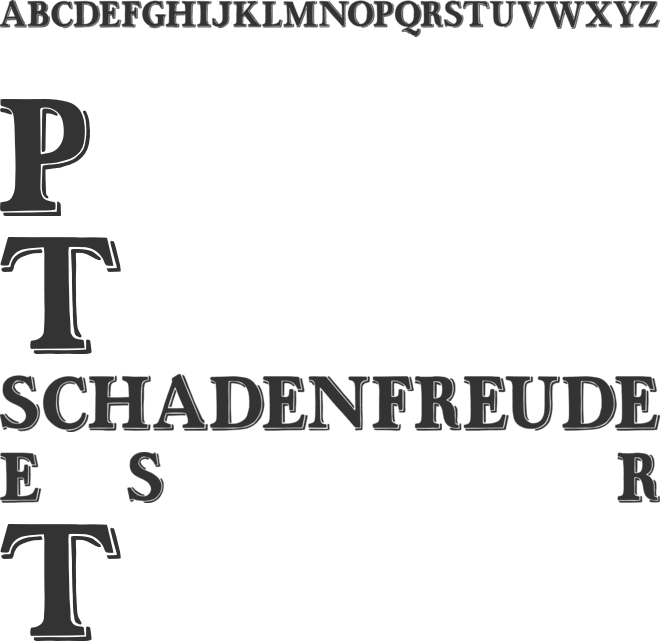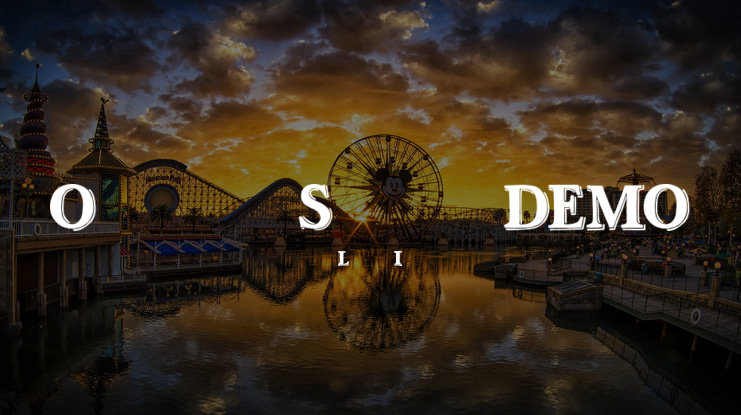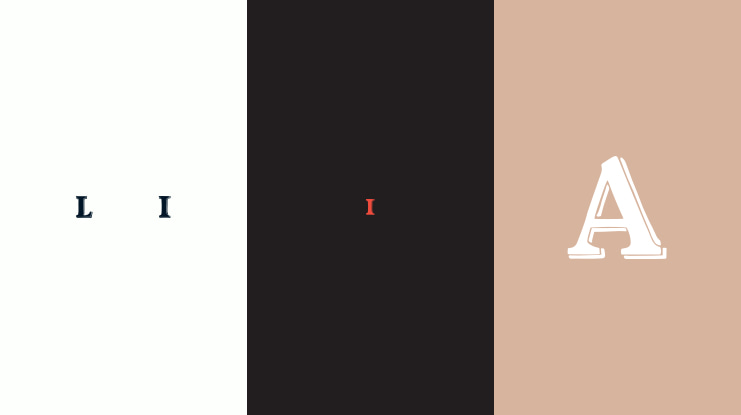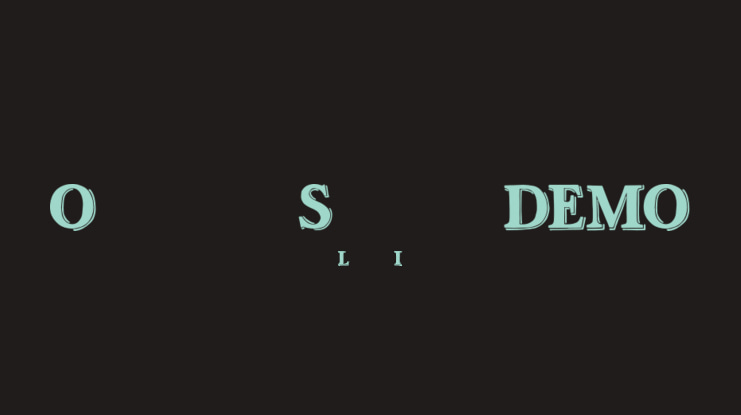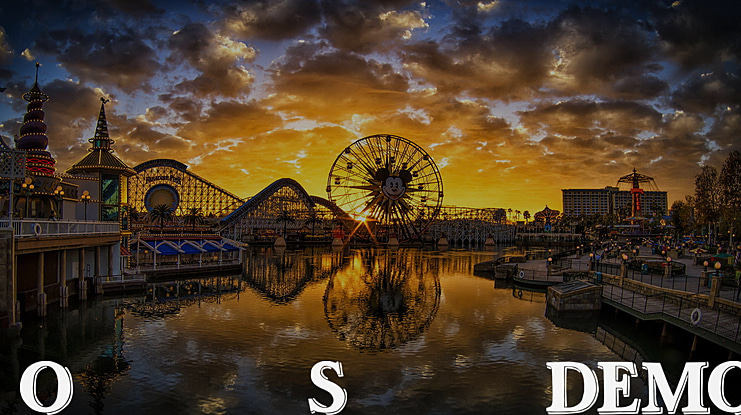
Ottanio Shaded DEMO Font
As the most classic and traditional style pack of the Fonts Cafè, the "Ottanio Shaded" font https://fontscafe.com/font/ottanio-shaded (one of the 3 in the whole "Ottanio Pack" https://fontscafe.com/fonts-packages/ottanio-pack ) take a place of honor in the list of the Fonts Café handmade Vintage style fonts.
Clearly born for being noticed, the boldness and the almost imperceptible, but present to the eyes of subconscious mind, irregularities of the Ottanio Family has been well balanced to create a set of handmade Serif fonts that can be used as jack of all trades where traditions, origins and a touch of Vintage style are required, the perpetual solution always useful to have on hand!